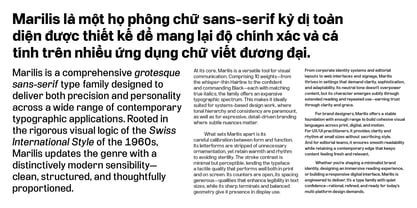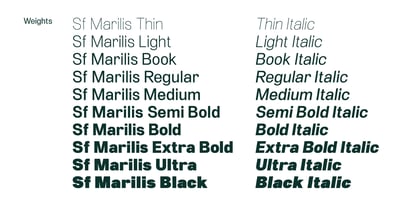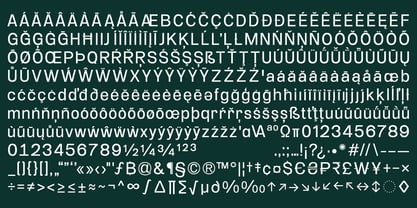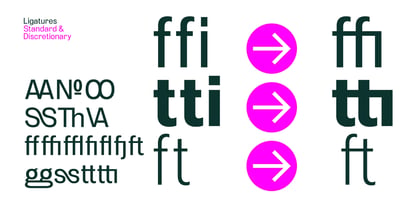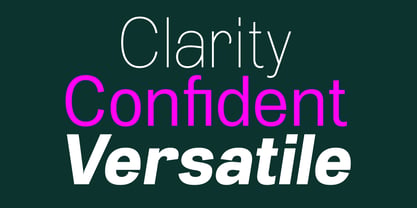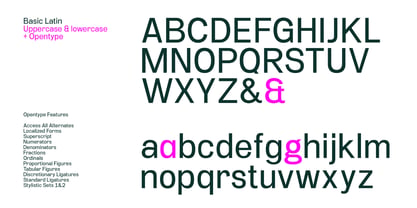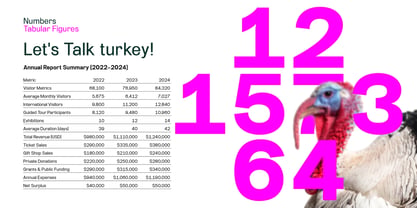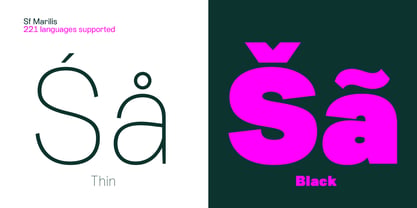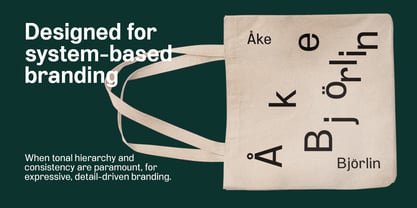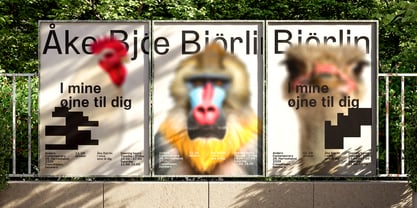
SF Marilis
The SF Marilis Font Family was designed by Paul Henry Robb and published by S6 Foundry. SF Marilis contains 20 styles and family package options. More about this family
SF Marilis is a fully developed grotesque sans-serif family that embodies both functional clarity and modern refinement. Drawing inspiration from the precision and restraint of the Swiss typographic tradition of the 1960s, Marilis reinterprets these principles with a contemporary voice—crisp, confident, and unmistakably versatile.
With 10 meticulously crafted weights plus matching italics, Marilis adapts seamlessly across a wide spectrum of uses—from brand identities and editorial design to digital interfaces and long-form text. Its clean geometry, subtle humanist nuances, and unwavering legibility make it an ideal choice for both branding systems that demand consistency and body text that requires ease of reading.
Striking a delicate balance between neutrality and personality, Marilis delivers a typographic tone that is modern yet timeless—refined enough for high-end identities, yet restrained enough for extended reading. Whether used on screen or in print, it offers a reliable, elegant voice for designers seeking clarity with character.